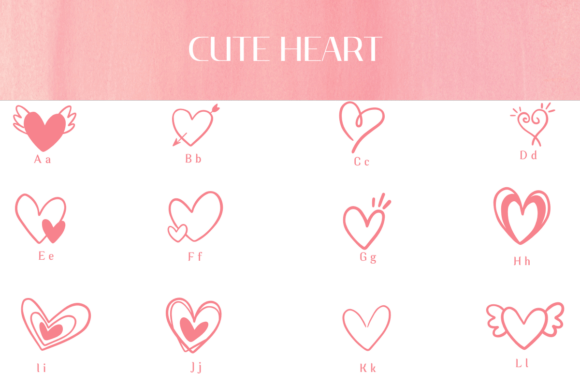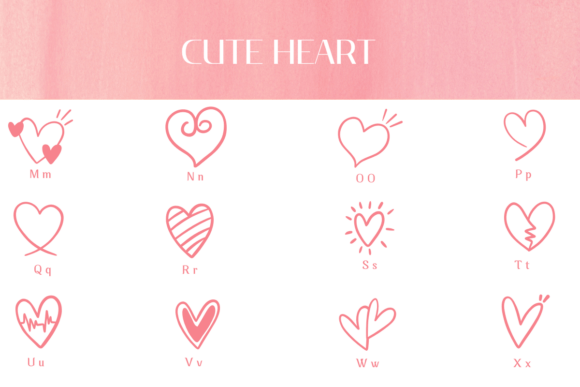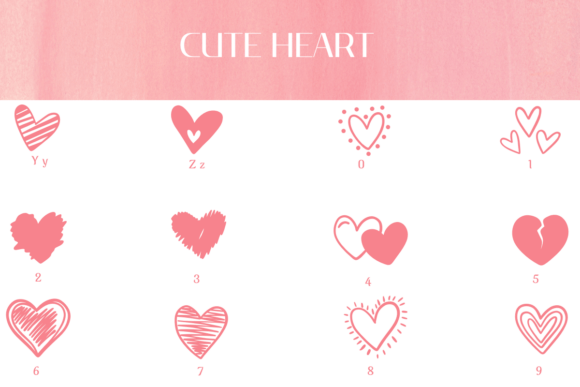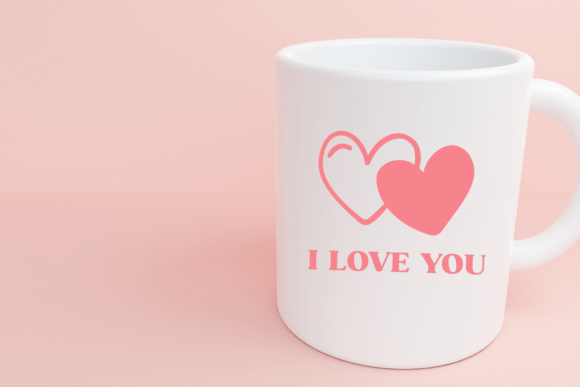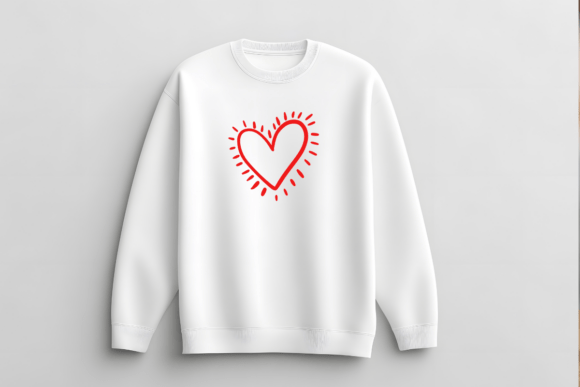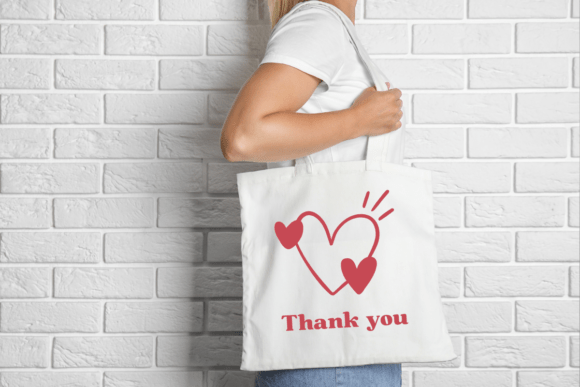
Cute Heart Font: Add a Touch of Whimsy to Your Designs
Are you looking for a font that can add a dash of cuteness to your designs? Look no further than the Cute Heart font! This adorable dingbats font is perfect for crafters, designers, and anyone who loves to add a personal touch to their creations. In this article, we’ll explore the world of Cute Heart font and discover how you can use it to take your designs to the next level.
What is Cute Heart Font?
Cute Heart is a dingbats font that features an array of heart-shaped characters, perfect for adding a touch of whimsy to your designs. The font is made up of various heart symbols, including filled hearts, outlined hearts, and hearts with arrows, making it ideal for creating cute and playful designs.
Uses of Cute Heart Font
Cute Heart font is incredibly versatile and can be used for a wide range of design projects. Here are some ideas to get you started:
- Journaling and Note-taking: Add a personal touch to your journal entries or notes with Cute Heart font. You can use it to highlight important dates, mark special occasions, or simply add a decorative touch to your pages.
- Diary Writing: Make your diary entries more engaging with Cute Heart font. You can use it to create cute headers, highlight special memories, or add a touch of personality to your writing.
- Greeting Cards: Create adorable greeting cards for special occasions like Valentine’s Day, birthdays, or anniversaries. Cute Heart font is perfect for adding a touch of whimsy to your card designs.
- Banners and Signs: Use Cute Heart font to create eye-catching banners and signs for parties, events, or promotions. The font’s playful design is sure to grab attention and add a touch of fun to your designs.
- Social Media Posts: Add a touch of personality to your social media posts with Cute Heart font. You can use it to create engaging graphics, highlight special offers, or simply add a decorative touch to your posts.
- Mugs, Cards, and Shirts: Use Cute Heart font to create custom designs for mugs, cards, and shirts. The font’s cute and playful design makes it perfect for creating unique and personalized gifts.
- Stationery: Add a touch of whimsy to your stationery with Cute Heart font. You can use it to create custom notebooks, journals, or letterheads that are sure to stand out.
Tips for Using Cute Heart Font
Here are some tips for using Cute Heart font in your designs:
- Mix and Match: Experiment with different heart symbols to create unique and interesting designs. You can mix and match filled hearts, outlined hearts, and hearts with arrows to create a look that’s all your own.
- Play with Size and Color: Don’t be afraid to play with the size and color of Cute Heart font. You can use large hearts to create a bold statement or small hearts to add a subtle touch to your designs.
- Combine with Other Fonts: Combine Cute Heart font with other fonts to create a unique and interesting look. You can pair it with a bold font for a striking contrast or a script font for a more elegant look.
Cute Heart font is a versatile and adorable dingbats font that’s perfect for crafters, designers, and anyone who loves to add a personal touch to their creations. With its wide range of heart-shaped characters, Cute Heart font is ideal for creating cute and playful designs for journaling, note-taking, greeting cards, and more. So why not give it a try and add a touch of whimsy to your designs?
Whether you’re a seasoned designer or a crafty hobbyist, Cute Heart font is sure to become a favorite in your design arsenal. So go ahead, get creative, and add a touch of cuteness to your designs with Cute Heart font!